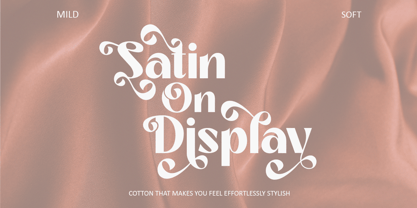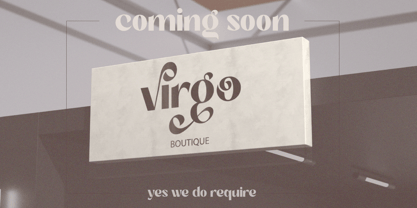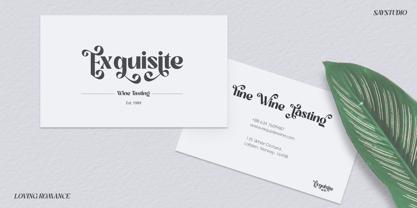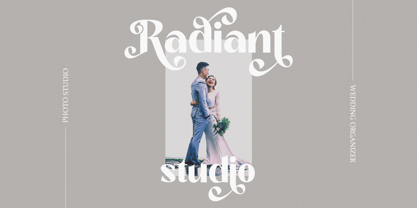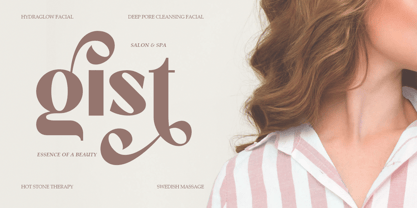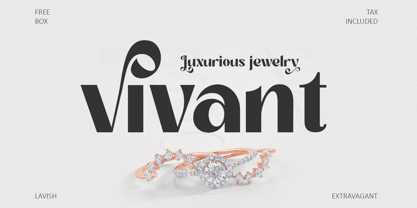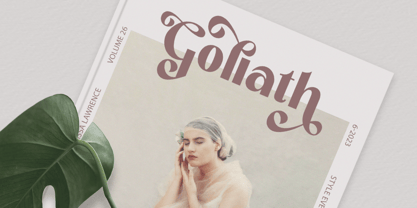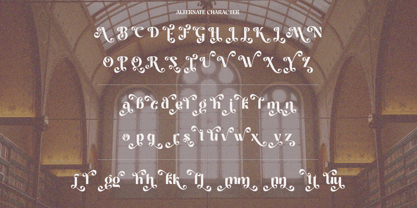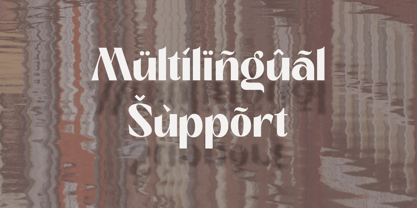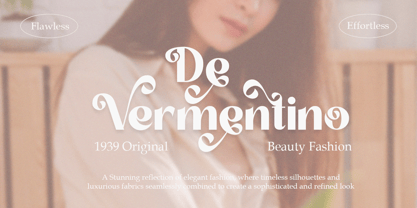
Loving Romance
The Loving Romance Font Family was designed by Ghina Luthfiarieska and published by Font Liner. Loving Romance contains 2 styles and family package options.
Loving Romance is a sophisticated and charming sans-serif font with elegant swashes and refined details, perfect for wedding invitations, branding, social media graphics, editorial design, event posters, and product packaging. Its unique style adds a touch of romance and timeless elegance, making it suitable for any project that seeks a balance of modernity and classic sophistication.
- Multilingual Support
- Stylistic Alternates